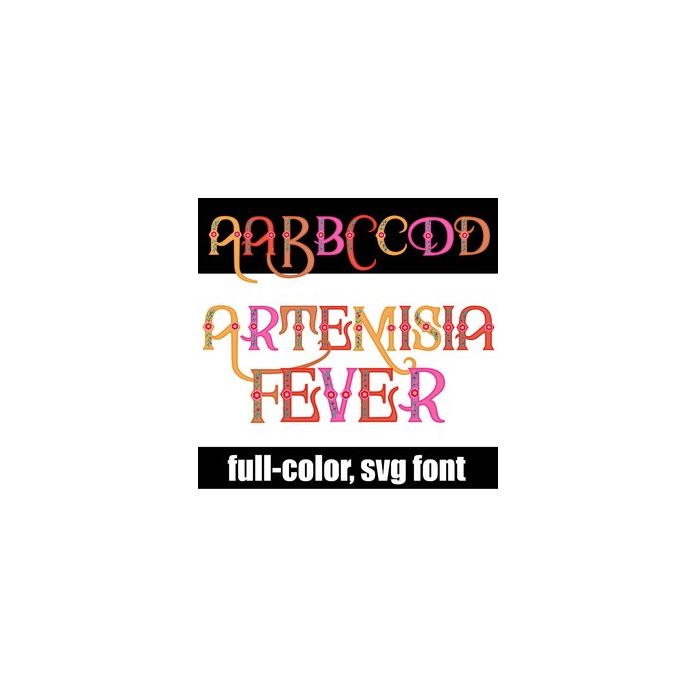
This full-color font features ornament, serif lettering in a bright and warm, summer palette. There is a second version of each uppercase letter in a different color with a big swoosh available through Silhouette's glyph map.